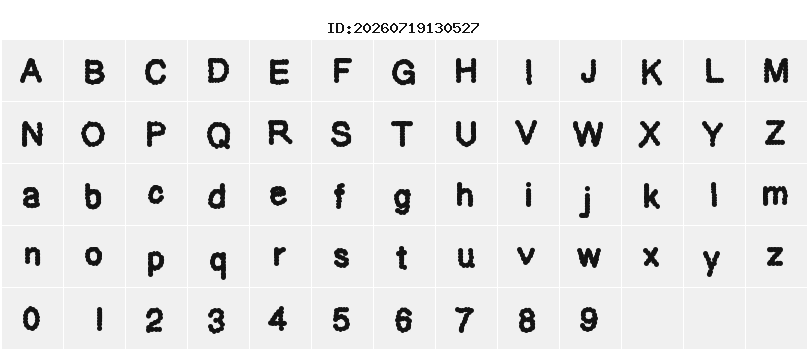
About CloudFont.ttf
CloudFont.ttf is a modern, elegant sans-serif font designed for ultimate readability and visual harmony. Perfect for branding, headlines, web design, and print materials.